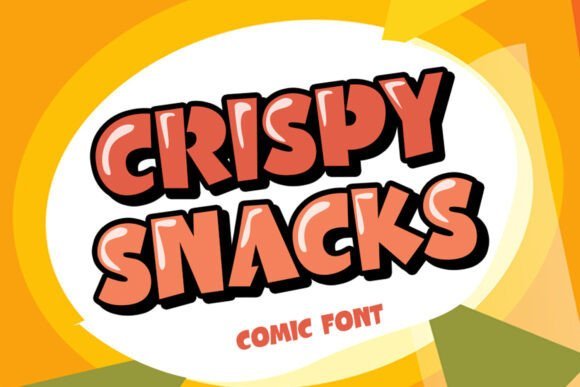
The Perfect Bite of Typography
Have you ever bitten into a crispy, crunchy snack that suddenly made your day a little brighter? That’s exactly the kind of excitement that the Crispy Snacks Font aims to bring to your designs.
Imagine adding a playful and energetic touch to your snack packaging, posters, or any project that needs a burst of excitement. That’s where Crispy Snacks Font comes in – a fun and bold comic-style font that’s perfect for designers looking to add a lively and eye-catching feel to their work.
With its chunky, crispy edges, this font is a valuable addition to any designer’s toolkit, offering endless possibilities for creative expression and adding a touch of whimsy to even the most mundane projects.
Crispy Snacks Font Key Features
- Font Family: Crispy Snacks is a sans-serif font family designed for modern and playful typography.
- Character Set: The font family includes a comprehensive character set, including Latin, Greek, Cyrillic, and extended Latin characters, making it suitable for multilingual projects.
- Unique Characteristics: The font features a distinctive, crispy texture and a bold, playful feel, making it perfect for snack packaging, food labels, and other related designs.
Crispy Snacks Font Review
Overall, I think Crispy Snacks Font is a decent font choice, especially for food-related branding and advertising. Here are some things I like about it: ✨
- Unique and playful design that captures the essence of a crispy snack
- Perfect for creating attention-grabbing headlines and advertisements
- Works well for packaging design, menus, and other food-related materials
- Highly customizable, with various styles and weights available
- Not ideal for body text, as it can be difficult to read in smaller sizes
- Lacks the sophistication and elegance of more traditional fonts
- May not be suitable for formal or professional applications
- Some characters may not be available in certain languages
Overall, I think Crispy Snacks Font is a fun and creative choice for the right project. While it may not be the most versatile font, it’s perfect for making a statement and grabbing attention. Just be sure to use it sparingly and in contexts where its playful nature will shine through.
Tips for Getting the Most Out of the Crispy Snacks Font
Use the Crispy Snacks Font to add a fun and playful touch to your designs.
Pair the font with bold colors and creative graphics to create eye-catching visuals.
Experiment with different font sizes and styles to add visual interest to your design.
The Crispy Snacks Font is perfect for:
Food and beverage branding
Children’s party invitations and decorations
Fun and playful social media graphics
Alternatives to Crispy Snacks Font
Bangers
Bangers is a sans-serif font known for its bold, modern feel. It’s ideal for use in headings, logos, and any design where you want to grab attention. Compared to Crispy Snacks Font, Bangers has a more aggressive feel, making it better suited for high-energy brands.
Playfair Display is a luxurious, high-end font with elegant flair. It’s perfect for use in formal invitations, luxury branding, and any design where sophistication is key. Unlike Crispy Snacks Font, Playfair Display has a more refined, vintage feel that exudes elegance and sophistication.
Montserrat is a geometric sans-serif font with a modern, urban feel. It’s ideal for use in city branding, tech startups, and any design where you want to convey a sense of innovation and progress. Compared to Crispy Snacks Font, Montserrat has a more streamlined, minimalist feel that works well in digital designs.